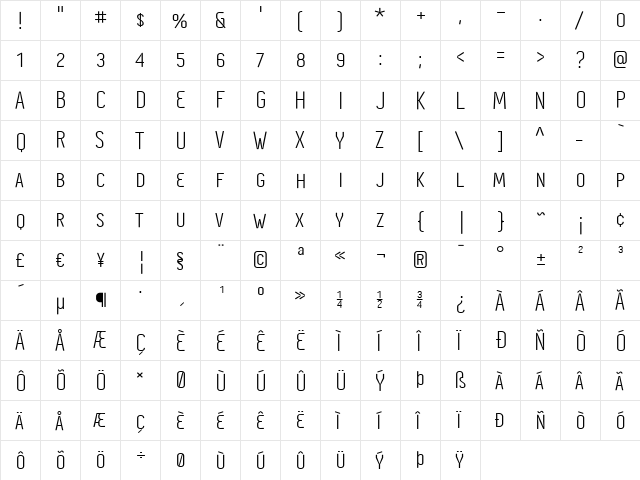
Cynapse Pro SC Regular
| Foundry | Neil Summerour/Positype |
| Designer | Neil Summerour/Positype |
Design Context for Cynapse Pro SC Typeface
Cynapse Pro SC is a composed and adaptable typeface that performs quietly and consistently across a wide range of design contexts.